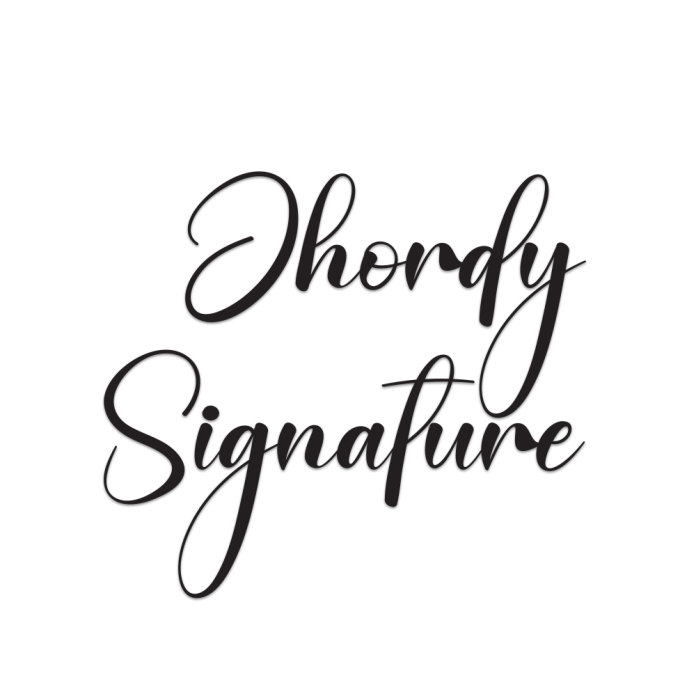
Jhordy Signature is a sleek and stylish handwriting font that mimics the smooth flow of a personal signature. Its elegant curves and natural strokes make it a perfect choice for branding, personal logos, wedding invitations, and fashion-themed designs.
This font adds a professional yet personal touch to any project, combining minimalism with modern sophistication.
Elegant signature handwriting style
Smooth, flowing curves with a natural pen feel
Ideal for logos, branding, social media, and stationery